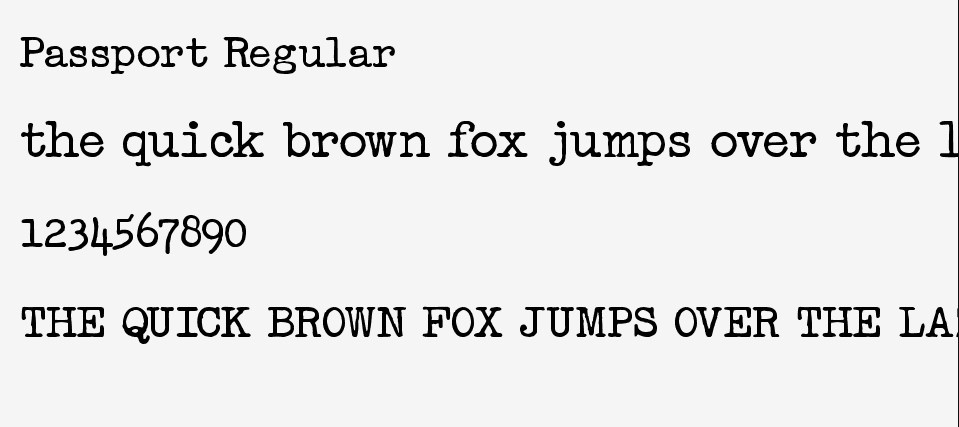
Passport Font
Passport font is known for its Korean typeface nad for its text generation function. This is widely used inside photoshop and present here for free. You’ll be stimulated through the manner of the useful resource of hundreds of those fonts. Maintain in thoughts regardless of the reality that that locating the amazing font is fine simply an area to begin.
Just like experiment brush script, this well-known font ideally suited for photo layout packages beginning from the editorial, organization, net, interplay to product format. Passport Font Free Furthermore to the everyday patterns, the exchange versions will flip the font proper right into an awesome partner for cutting-edge-day-day, technical, and gift-day impressions similarly to excessive specific, luxurious, and timeless. Includes an entire set of characters that lets you cope with numerous languages in its four versions. Therefore, badabum font may be visible as a proper away accomplice to the cellular phone font’s own family.
Download It makes a splendid font for brand and layout. It modified into designed primarily based mostly on the playfair display font family, with the same mind in thoughts: geometry, simplicity, and neutrality. Most of the people have a take a look at correctly utilizing them in petite sizes without dropping legibility. The style font makes certain clean operation even on low-excellent papers.